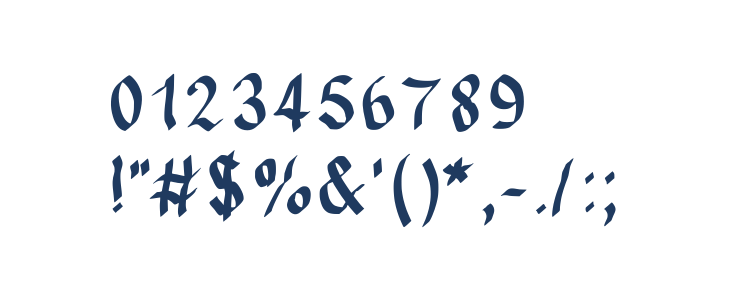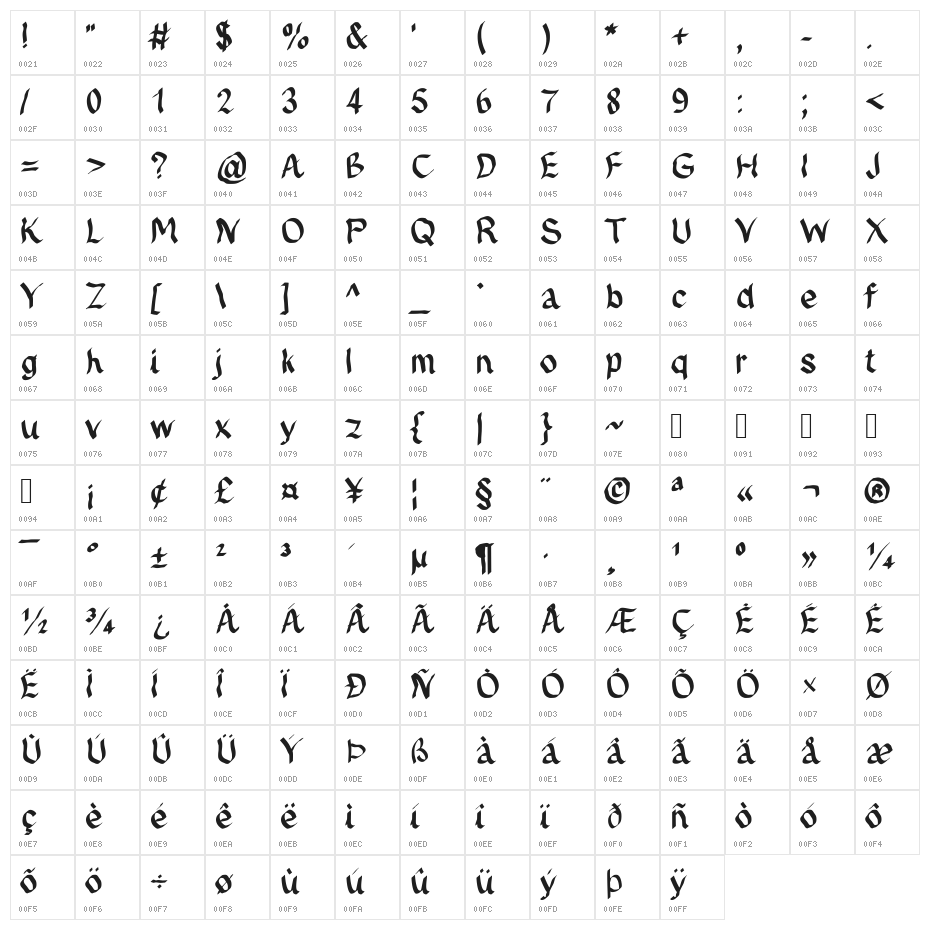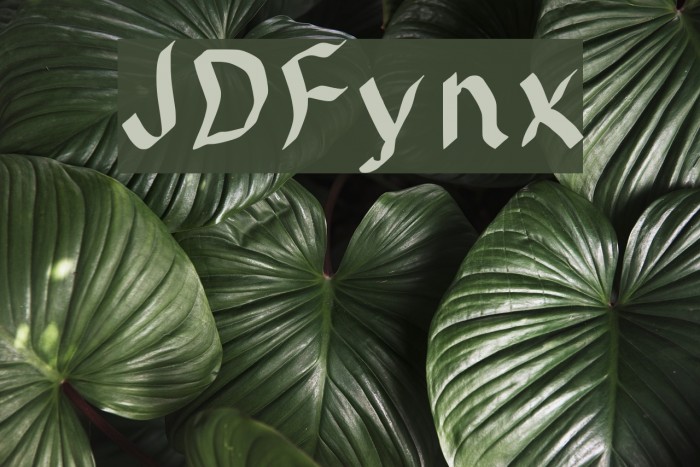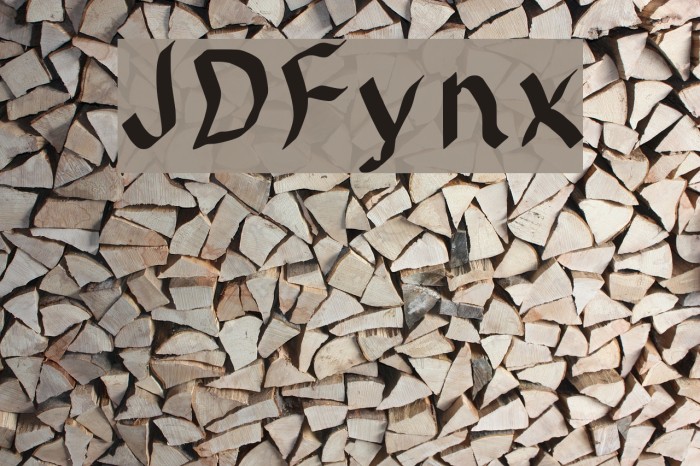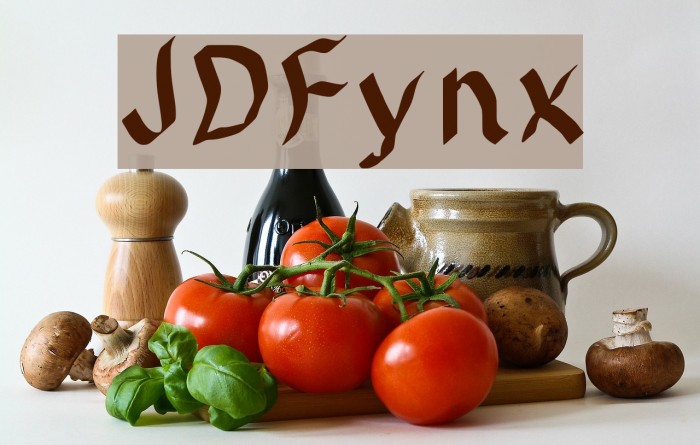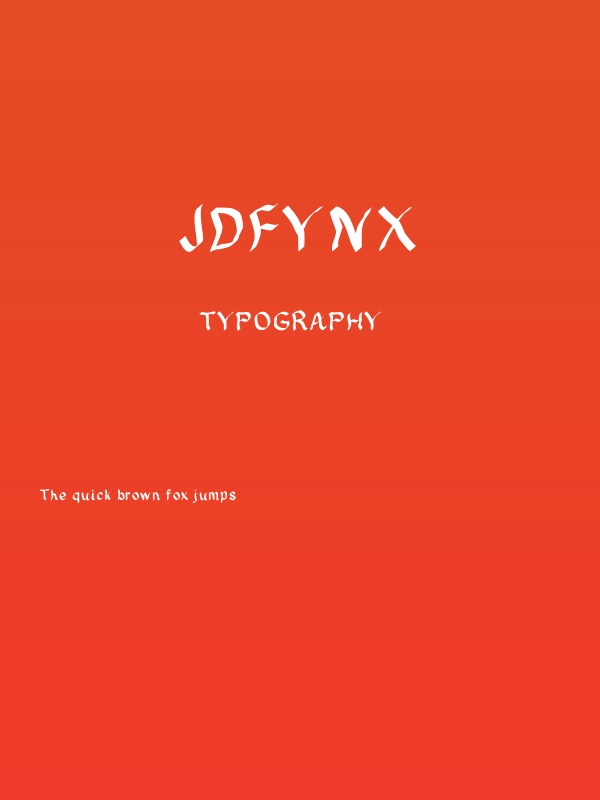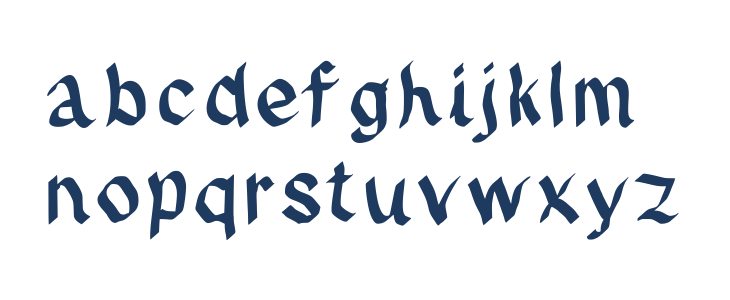
JDFynx Font
JDFynx Description
This font exudes a bold and dramatic flair, characterized by its sharp, angular strokes and a calligraphic style reminiscent of traditional Gothic scripts. The uppercase letters are particularly striking, with a strong presence that commands attention. The lowercase letters maintain a consistent style, offering a harmonious balance between elegance and assertiveness. Numbers and special characters are crafted with the same attention to detail, ensuring a cohesive look across all glyphs. This font is ideal for projects that require a touch of historical or medieval ambiance, yet it remains versatile enough for modern applications.
| Proposed Projects | Ideal for book covers, posters, branding, and any design requiring a historical or dramatic touch. |